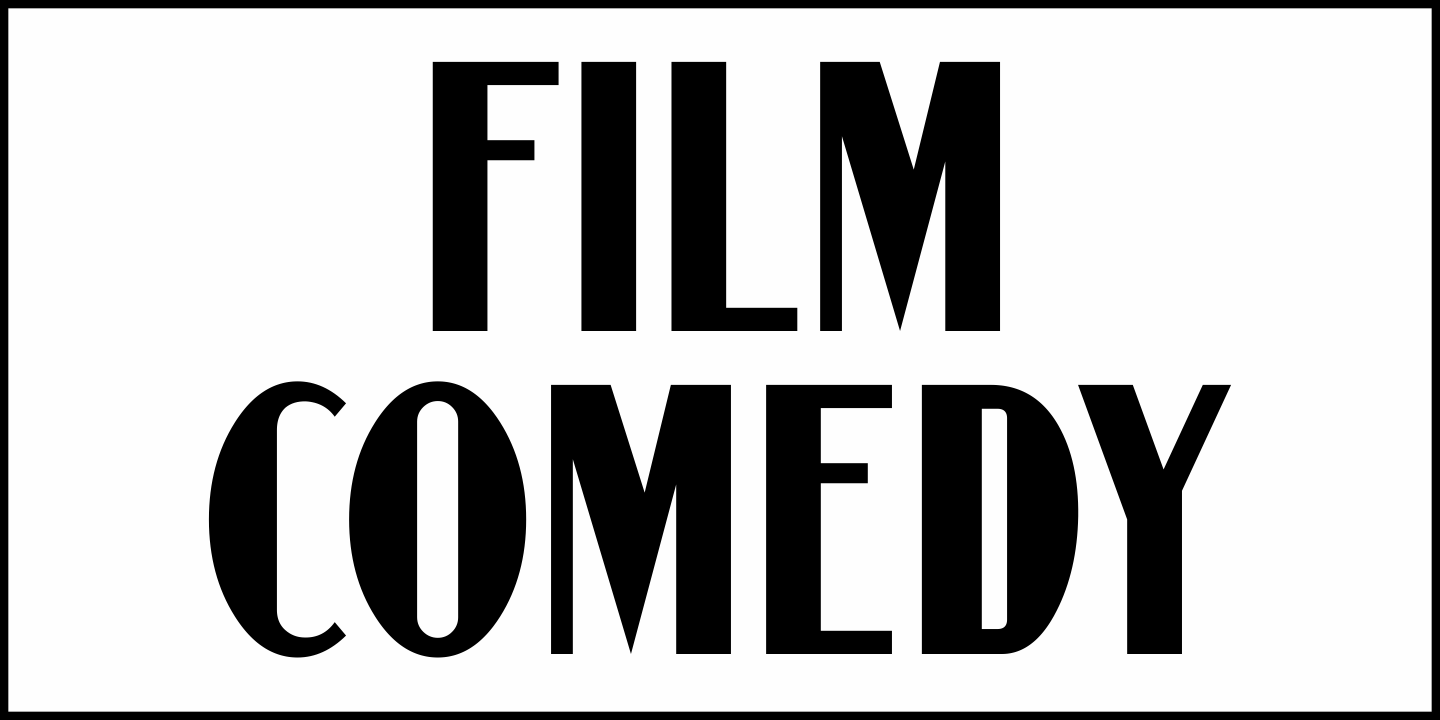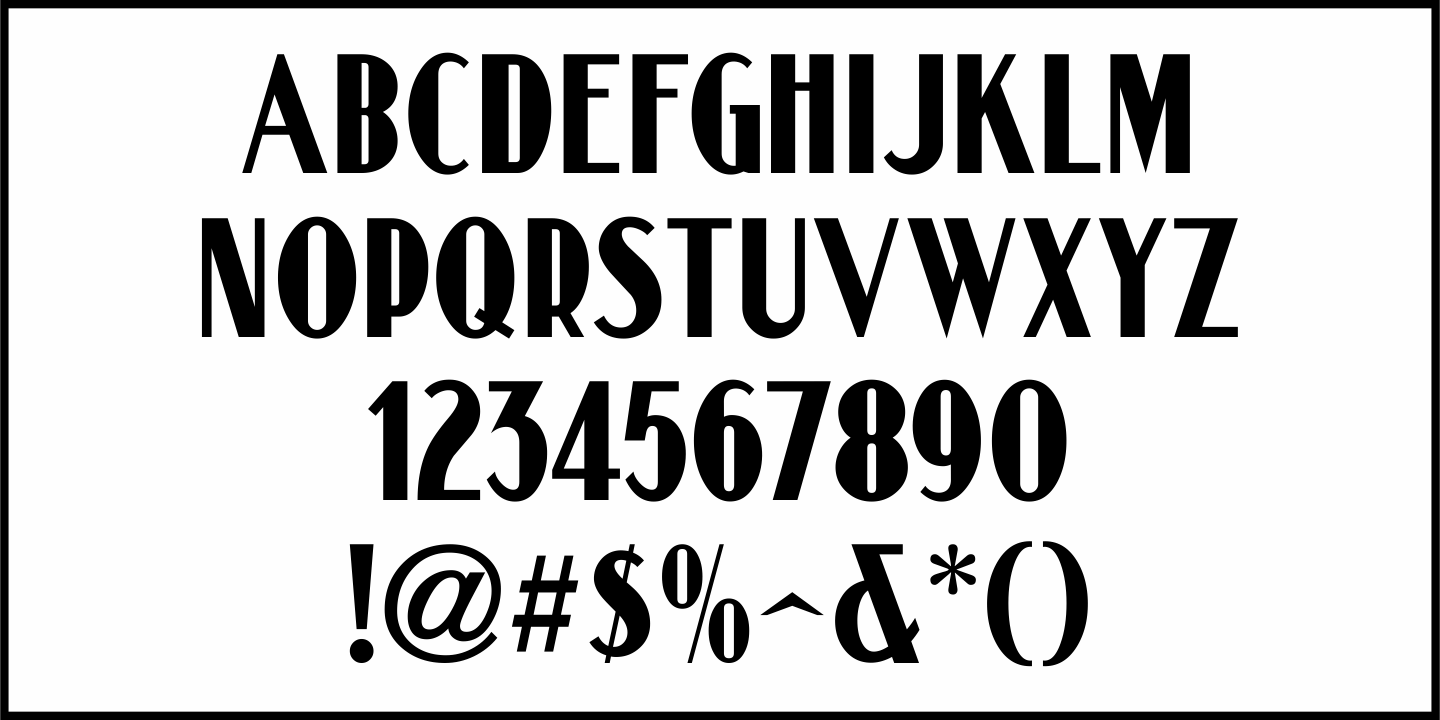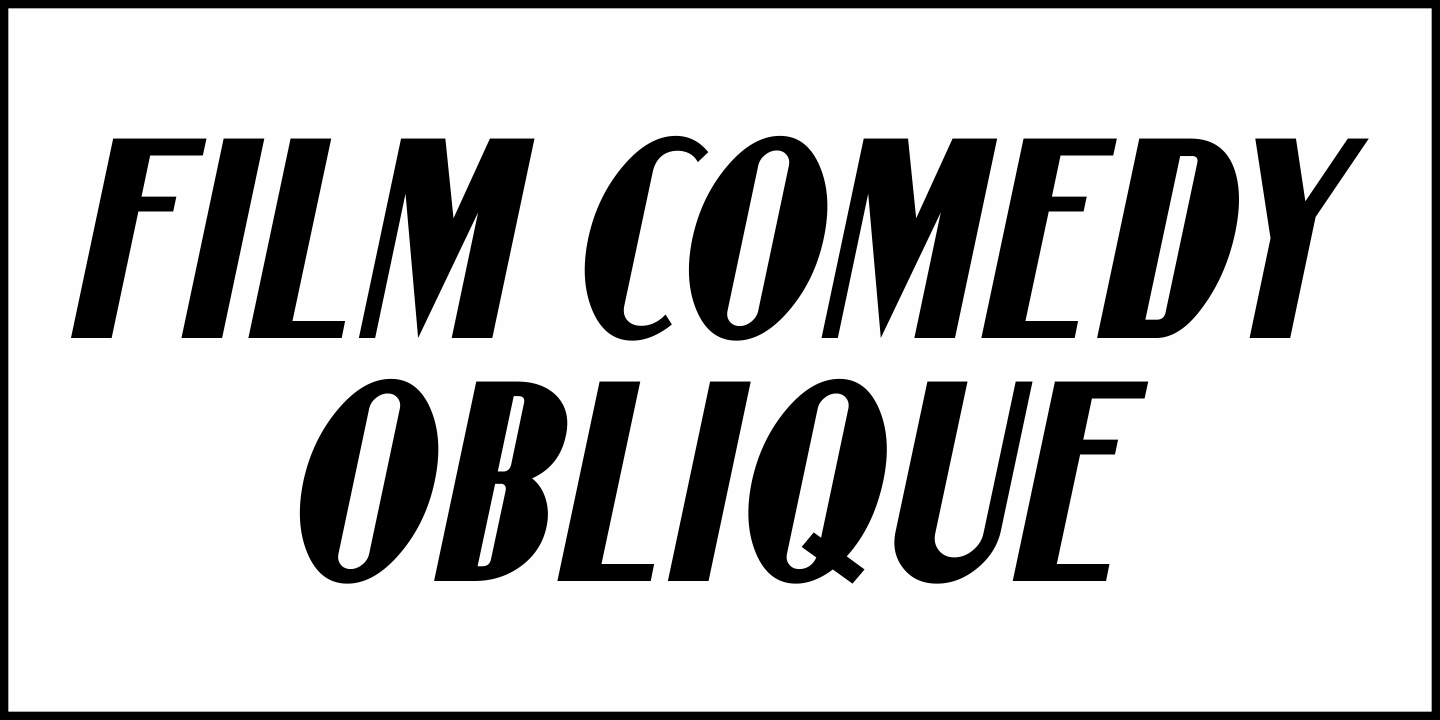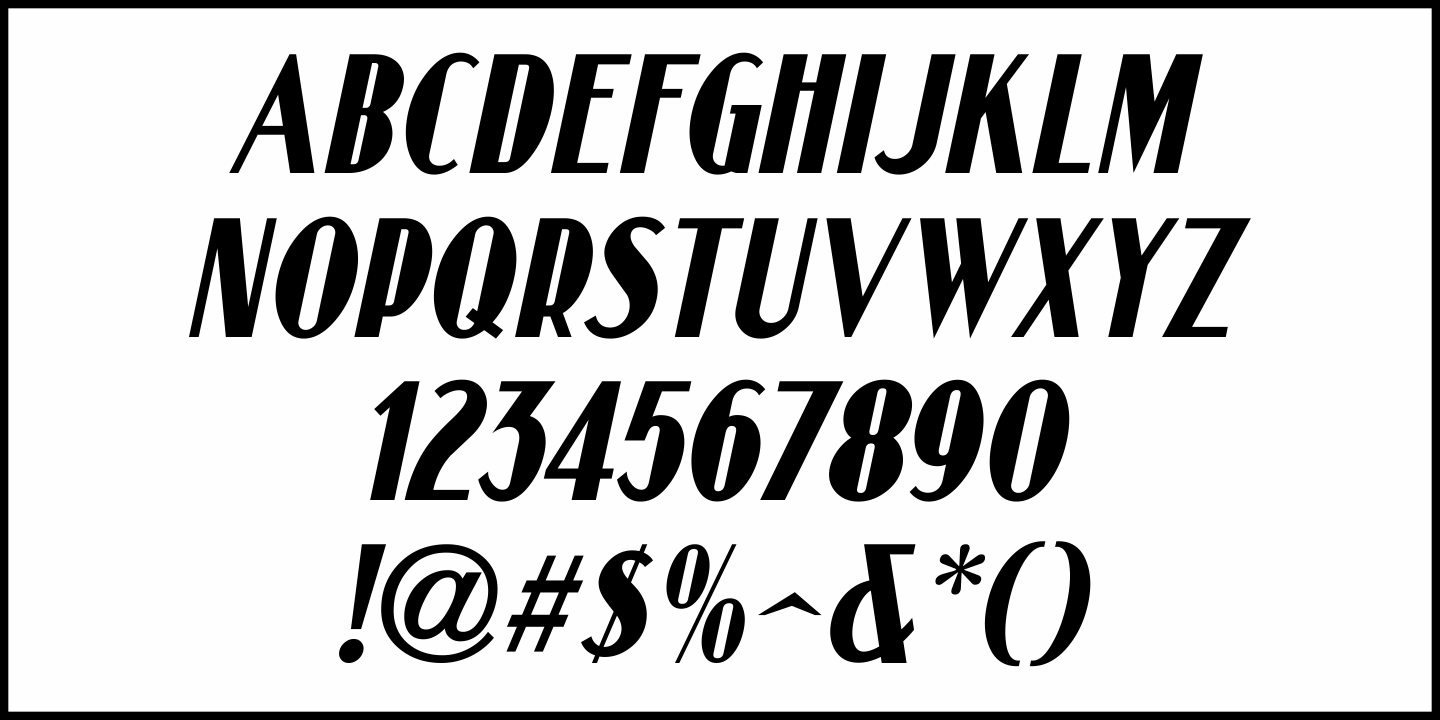
Film Comedy
An ad in the August 1, 1925 issue of Motion Picture News promoted Walter Hiers Comedies. The lettering - another variant of the thick-and-thin sans serif style so popular during the Art Deco era was hand lettered.
This is now available as Film Comedy JNL, in both regular and oblique versions.
Film Comedy JNL Regular by Jeff Levine Fonts